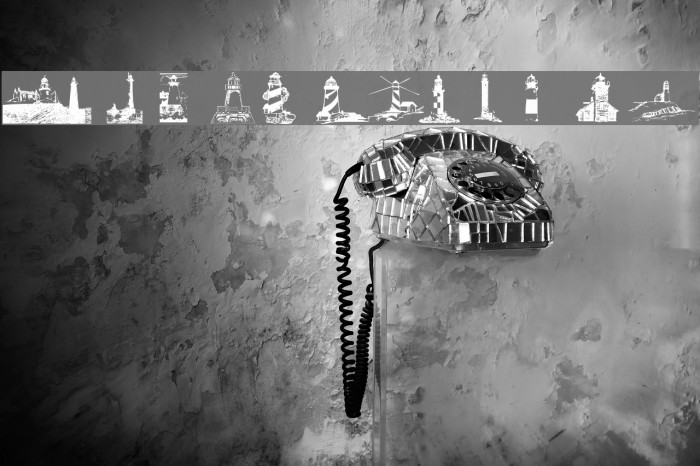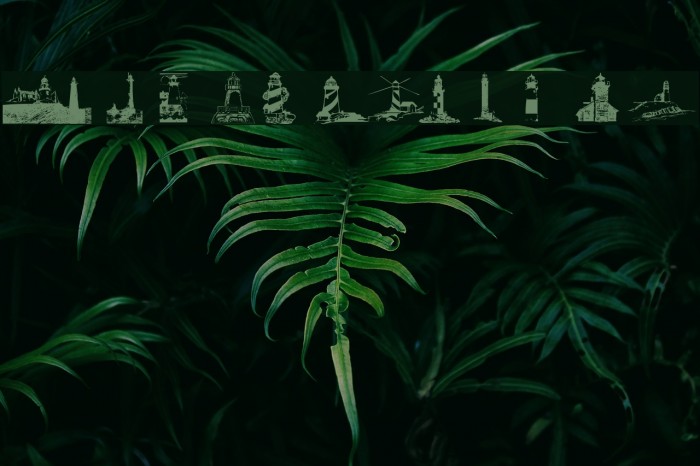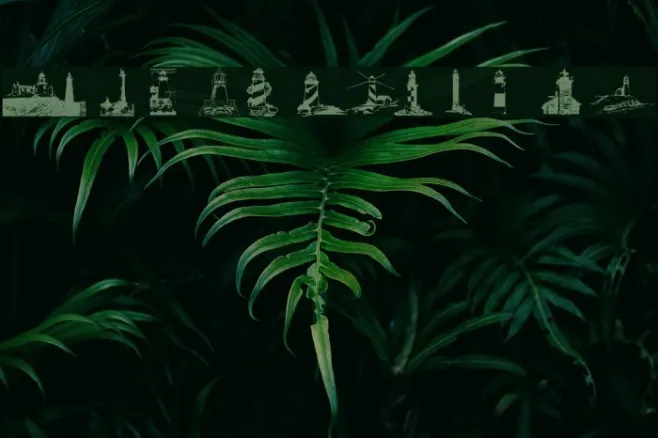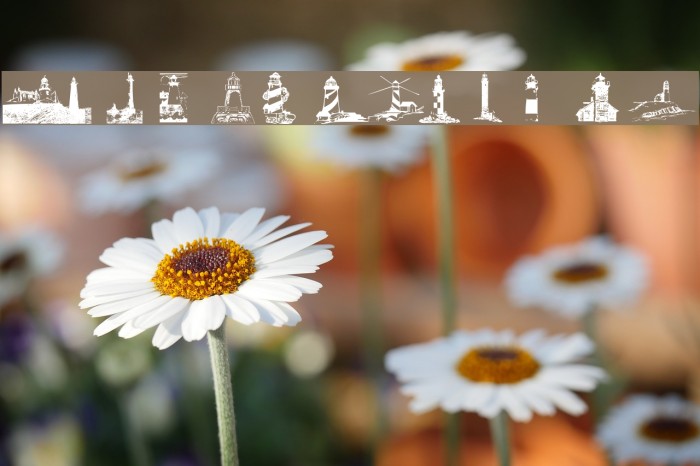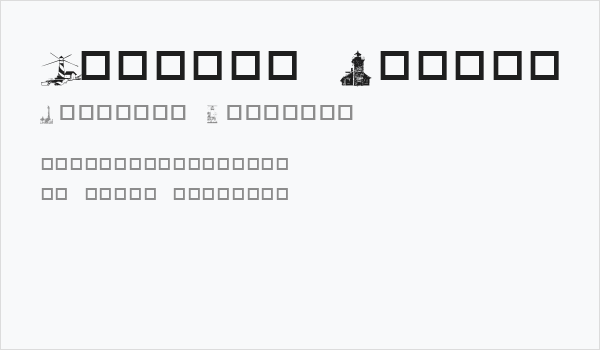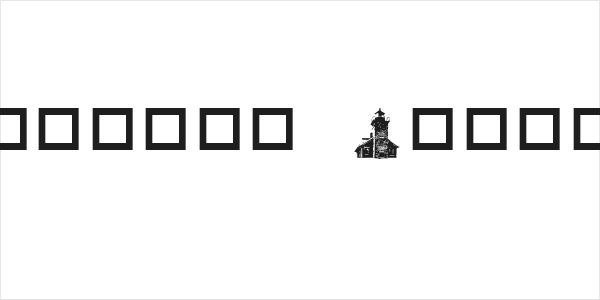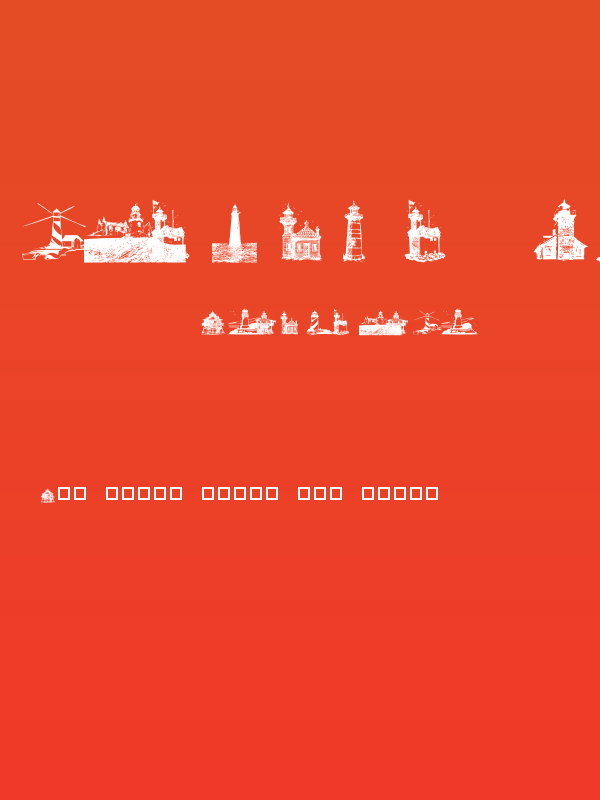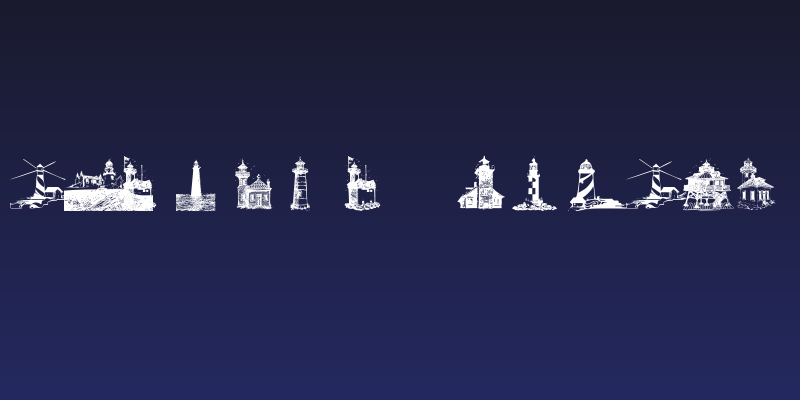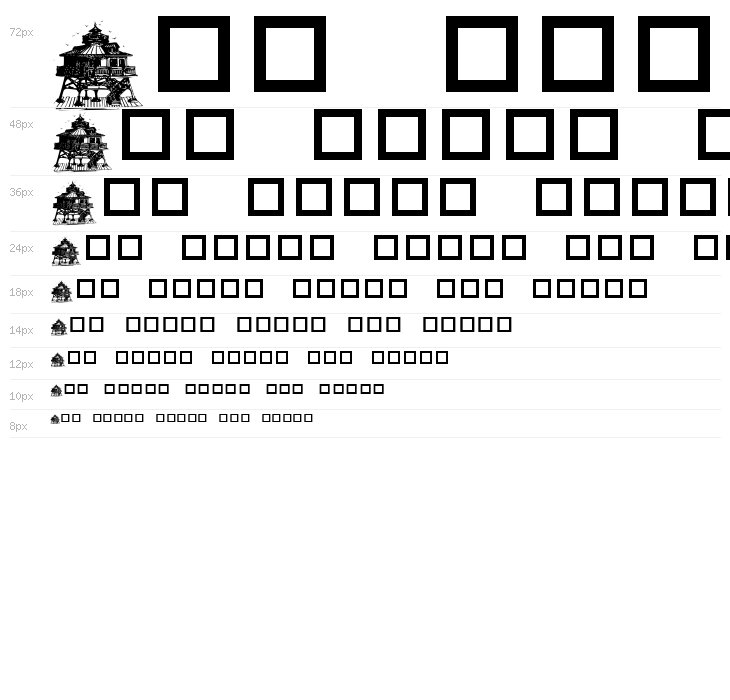
Harbour Lights Font
Harbour Lights Description
A decorative font featuring detailed black-and-white illustrations of various lighthouses and coastal buildings in place of standard alphanumeric characters. Each glyph is a unique, intricate drawing, giving the font a hand-drawn, vintage maritime feel.
| Overall Style | Decorative, Vintage, Nautical |
| Use Case | Logos, Headlines, Themed graphics, Scrapbooking |
| Proposed Projects | Nautical-themed posters, event invitations, scrapbooking, educational materials, decorative signage, and branding for coastal businesses. |